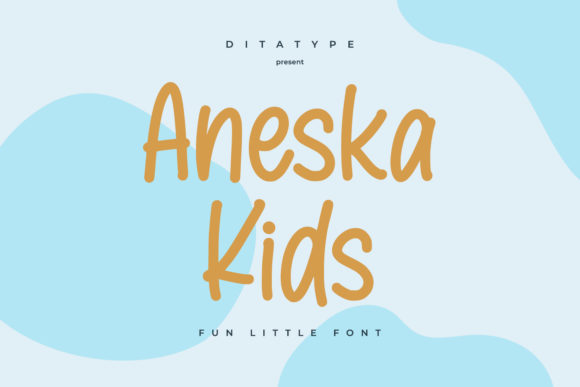
Introducing Aneska Kids Font: The Ultimate Expression of Creative Freedom
In a world saturated with monotony, Aneska Kids Font emerges as a breath of fresh air, a font that captures the essence of individuality and empowers you to make a statement with every word you type. This display font, meticulously crafted by the talented designers at Ditatype, is a symphony of classic calligraphy and modern aesthetics, seamlessly merging the best of both worlds.
With Aneska Kids Font, you hold the key to unlocking a treasure trove of creative possibilities. Whether you're a seasoned designer seeking to elevate your projects or a novice just starting your creative journey, this font will guide you effortlessly towards stunning results. Its versatility knows no bounds, effortlessly adapting to a myriad of design endeavors, from captivating letterheads and titles to elegant stationery that exudes sophistication.
Aneska Kids Font is not just a collection of letters; it's an invitation to embark on a voyage of self-expression. Its meticulously crafted characters possess an inherent charm, inviting you to pour your heart and soul into every word you write. Experience the joy of creating designs that are uniquely yours, designs that reflect your passions, your dreams, and your aspirations.
Immerse yourself in the world of Aneska Kids Font and discover a font that breathes life into your creative endeavors. Let your imagination soar as you explore the endless possibilities it offers, transforming ordinary words into mesmerizing works of art. Unleash your creativity and let Aneska Kids Font be your guide, leading you towards a world of limitless expression and boundless imagination.